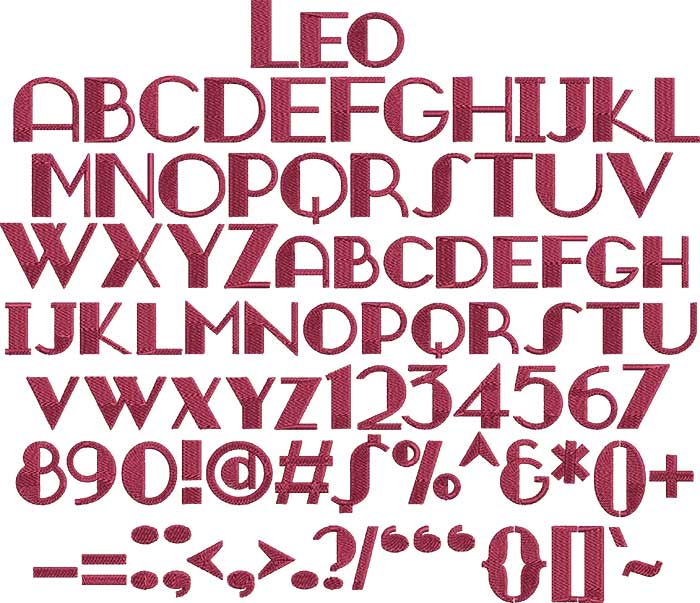
BX Embroidery Font: Leo
BX Embroidery Font: Leo is a thick and thin sans serif font with small caps lower case machine embroidery font that includes A-Z, a-z, 0-9 and the following punctuation: !@#$%^&*()-+={}[]|:;<,>.?/` (90 total characters).